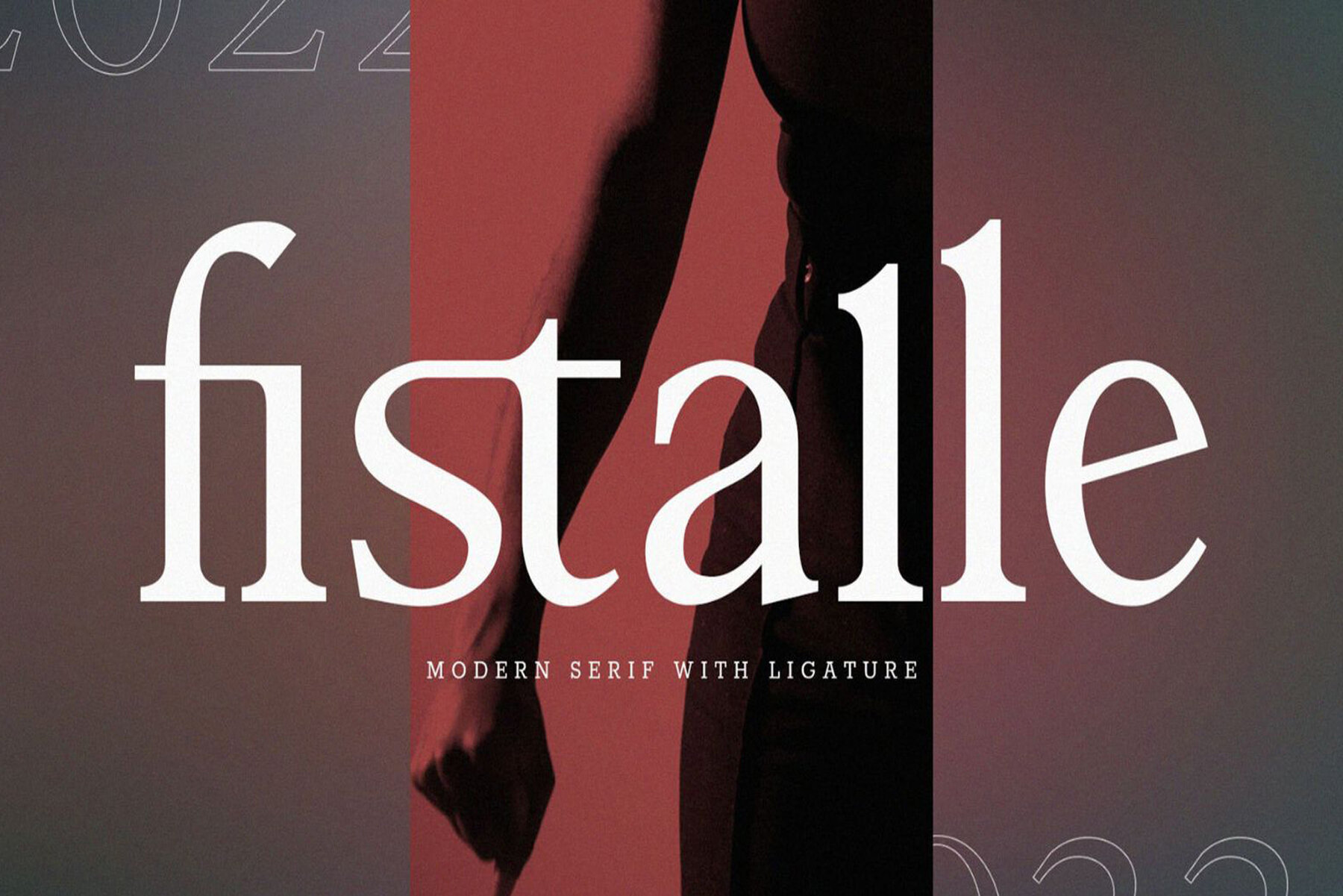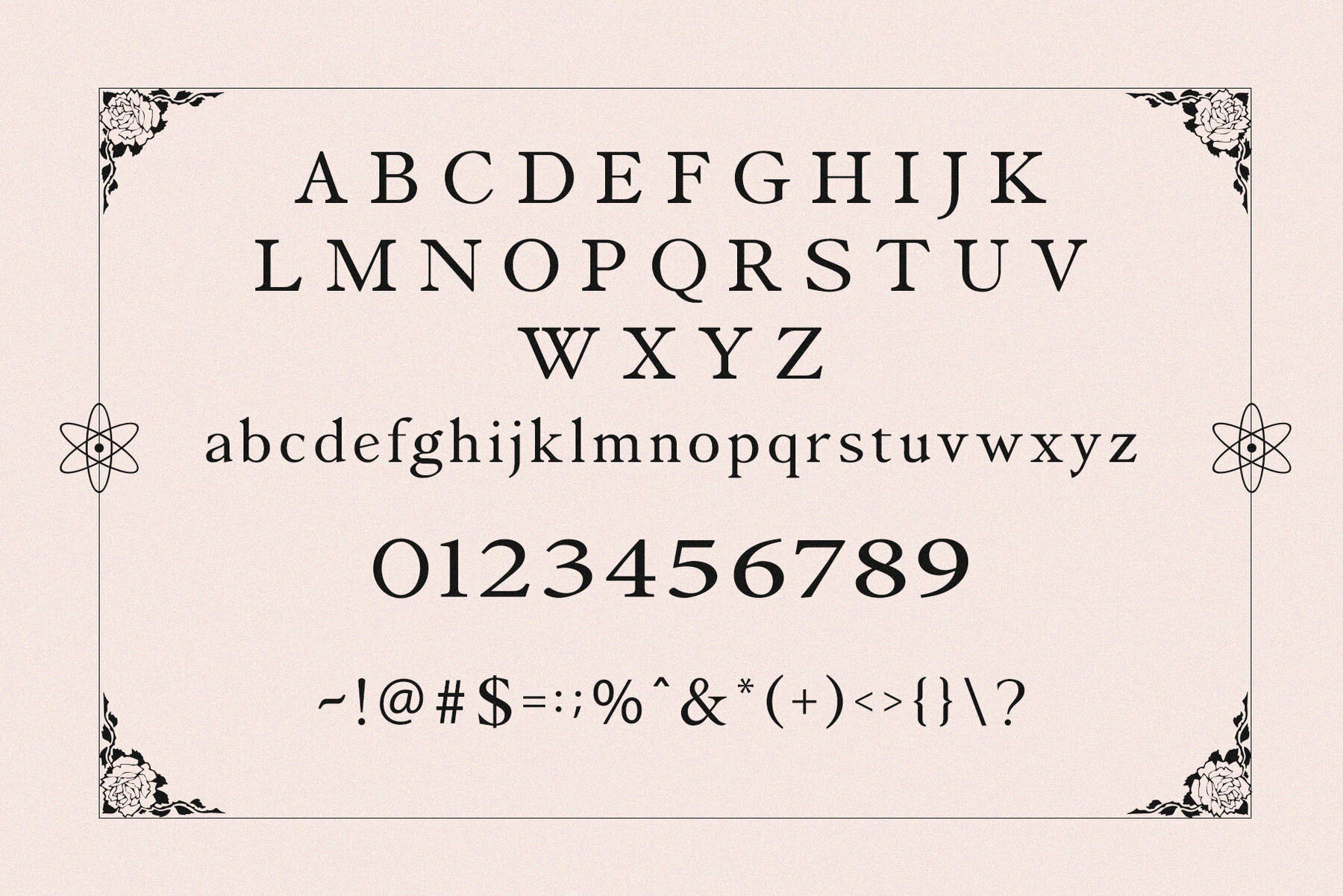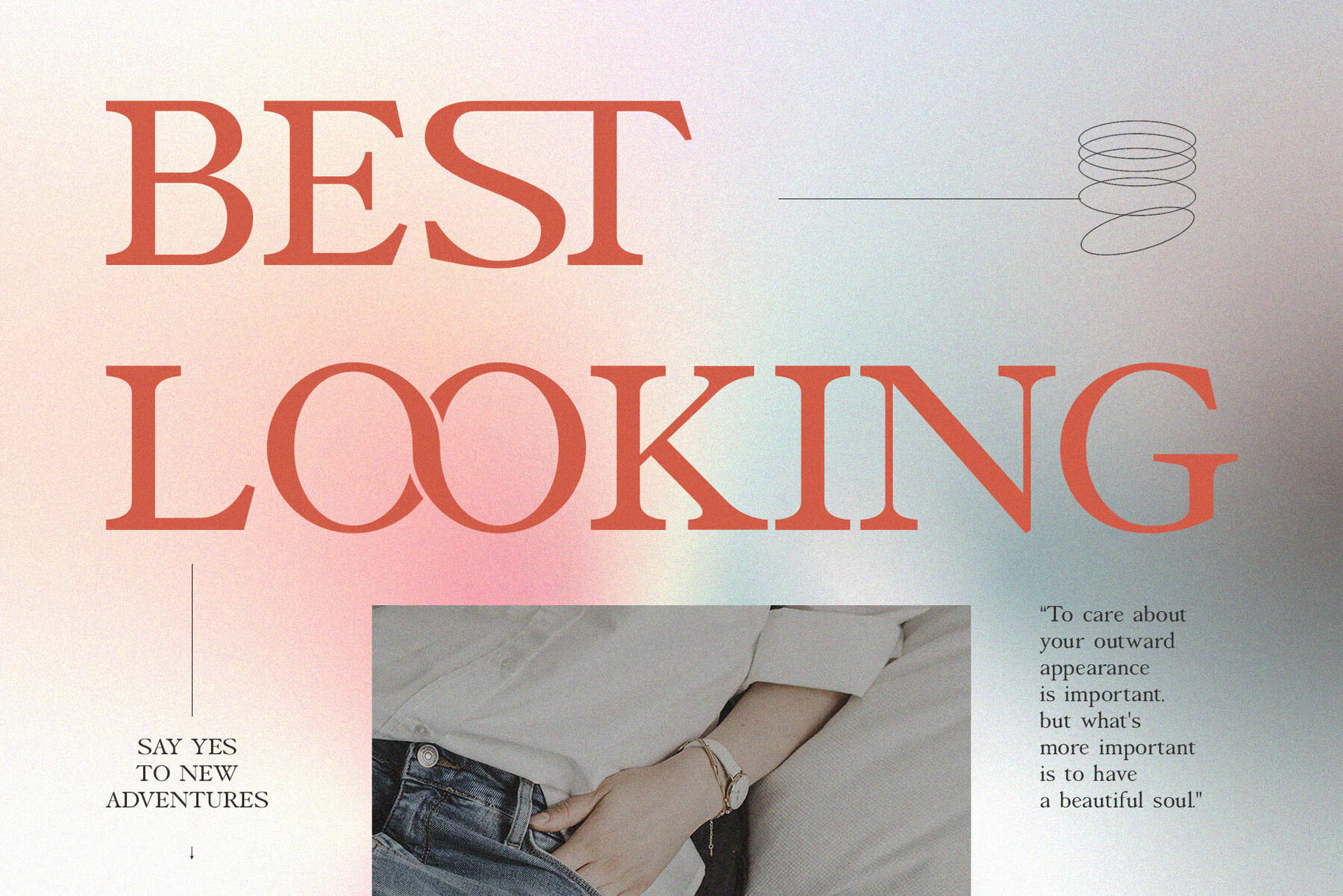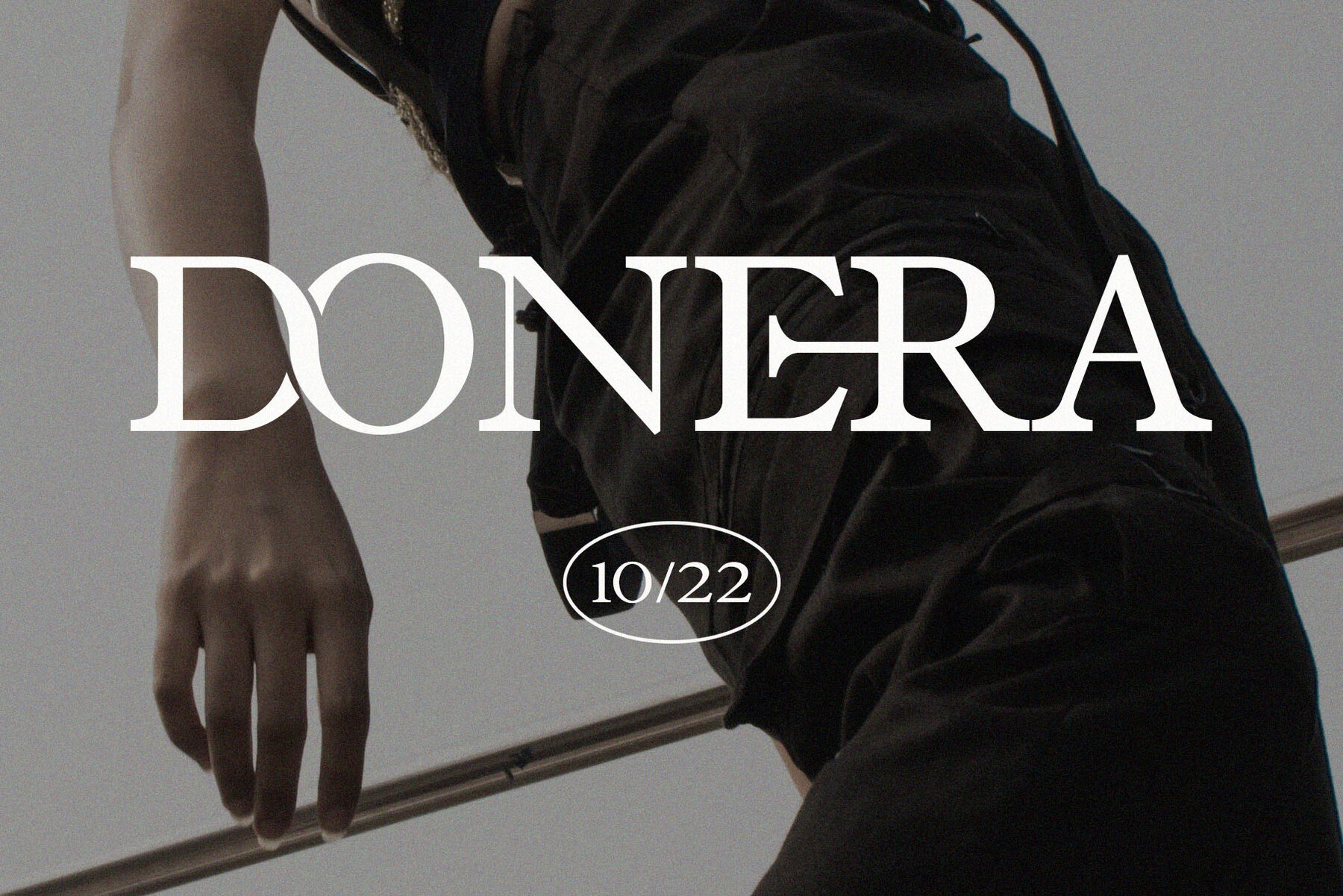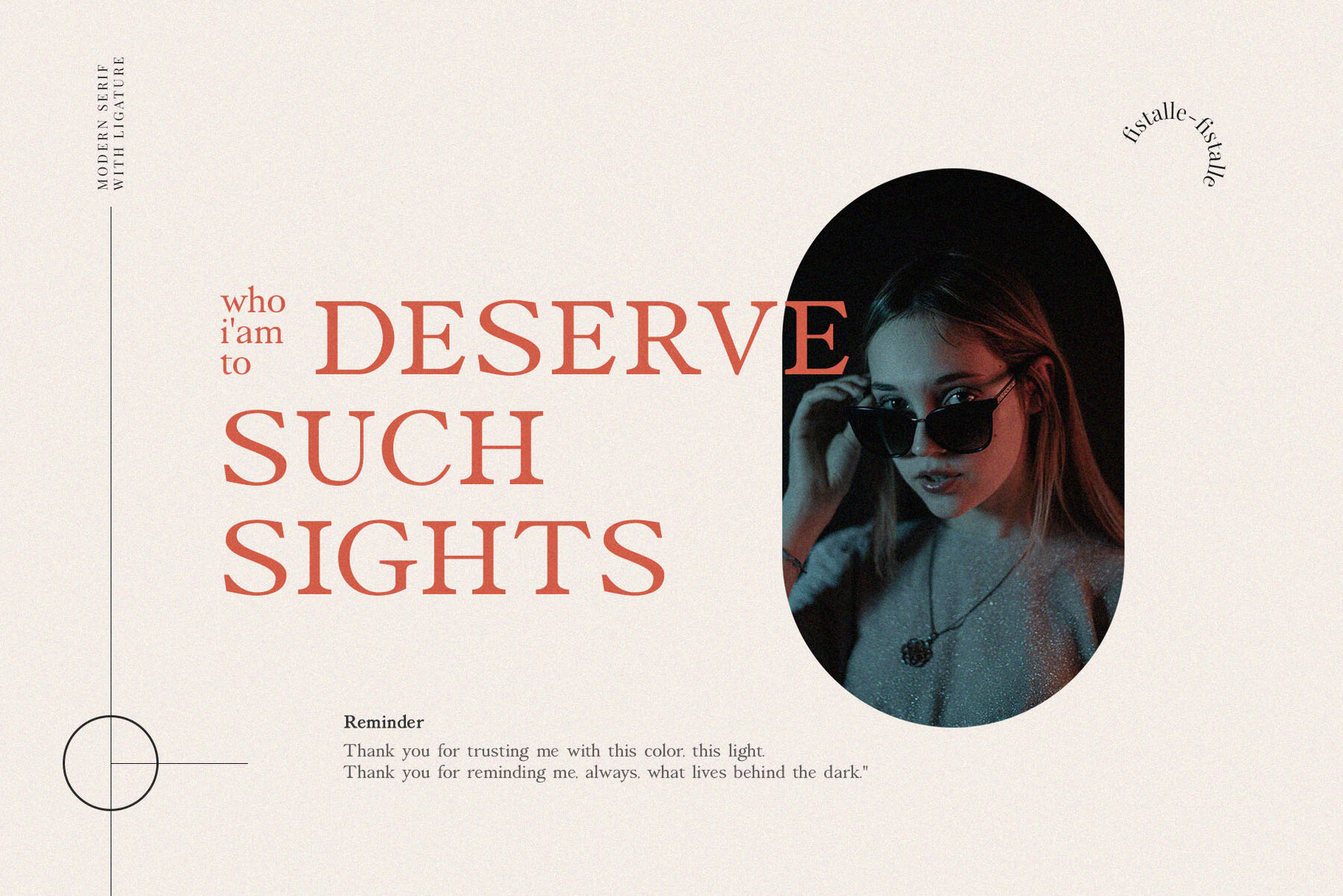
Fistalle Font
Fistalle Regular
Fistalle is a playful, elegant, and modern serif font crafted for diverse design uses. Whether you are creating a logo, crafting a social media post, designing a movie or book title, or working with short or long text, Fistalle's versatility will meet your creative needs. It offers a unique and charming aesthetic to elevate your designs into stunning masterpieces. Note: To access the webfont, a webfont license is required. If you have any questions or need assistance, feel free to reach out to Font Kingdom. Enjoy the creative journey with Fistalle!Fistalle: Playful Elegance in Serif Design
Ideal for Various Applications